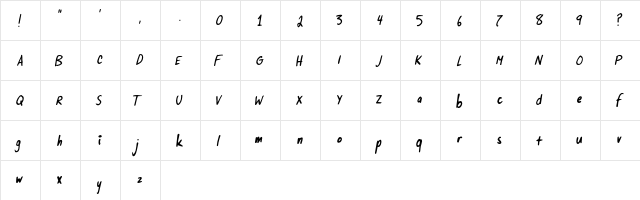
Supersonik Love Regular
| Foundry | Skyhaven |
| Designer | =^_^= |
Design Context for Supersonik Love Typeface
Supersonik Love is a composed and adaptable typeface that performs quietly and consistently across a wide range of design contexts.